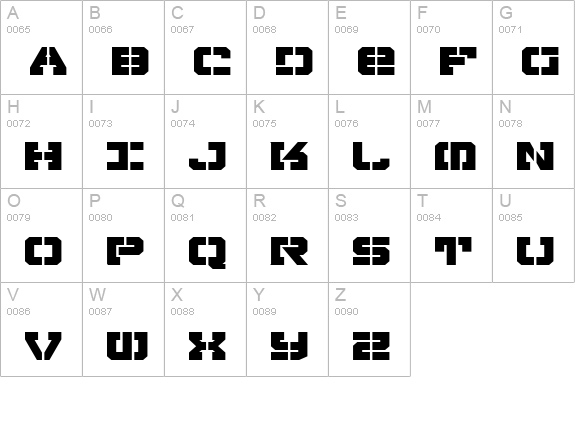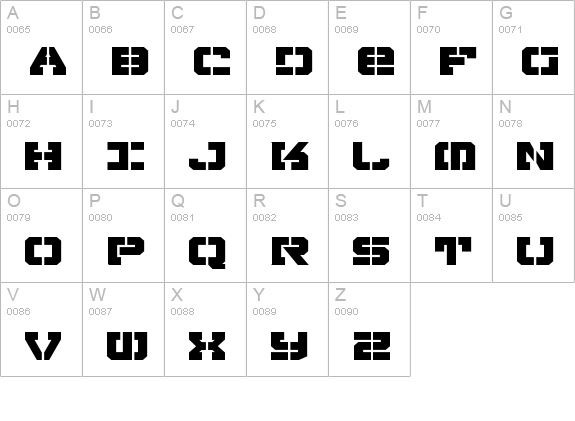
Vyper Bold Expanded is a strong, high-contrast, extended-width variant in the Vyper typeface family \xE2\x80\x94 well suited to headlines, attention-grabbing titles, and strong calls-to-action.
Vyper Bold Expanded font is a striking and dynamic typeface designed to make a bold statement in any design project. With its wide letterforms and strong, commanding presence, this font is perfect for headlines, titles, and other attention-grabbing text. The Vyper Bold Expanded font exudes confidence and power, making it an ideal choice for projects that require a bold and impactful aesthetic. Its sleek and modern design will add a touch of sophistication to any design, while its expanded width ensures maximum visibility and impact. Best of all, Vyper Bold Expanded font is available for free download at FontsMarket.com. This means you can easily access this impressive typeface and incorporate it into your projects without any cost. Don't miss out on this opportunity to elevate your designs with the eye-catching Vyper Bold Expanded font.